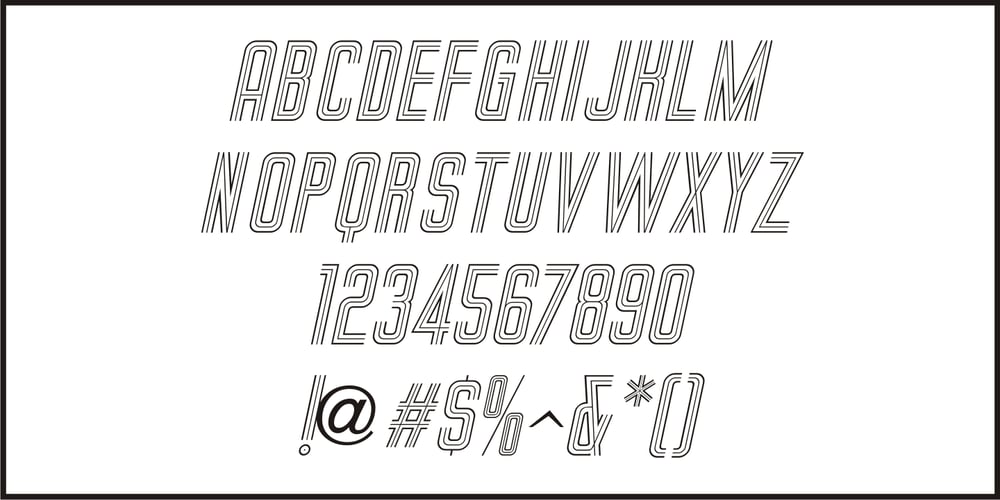
Sign Studio JNL
Sign Studio JNL font
Sign Studio JNL Font Family was designed by Jeff Levine and published by Jeff Levine. Sign Studio JNL contains 2 styles and family package options. The French lettering book Album de Lettres Arti (1949) displayed a number of examples of unique, stylized typefaces. One in particular features a multi-line sans serif in a classic Art Deco style with open-ended characters. This design is now available as Sign Studio JNL in both regular and oblique versions.